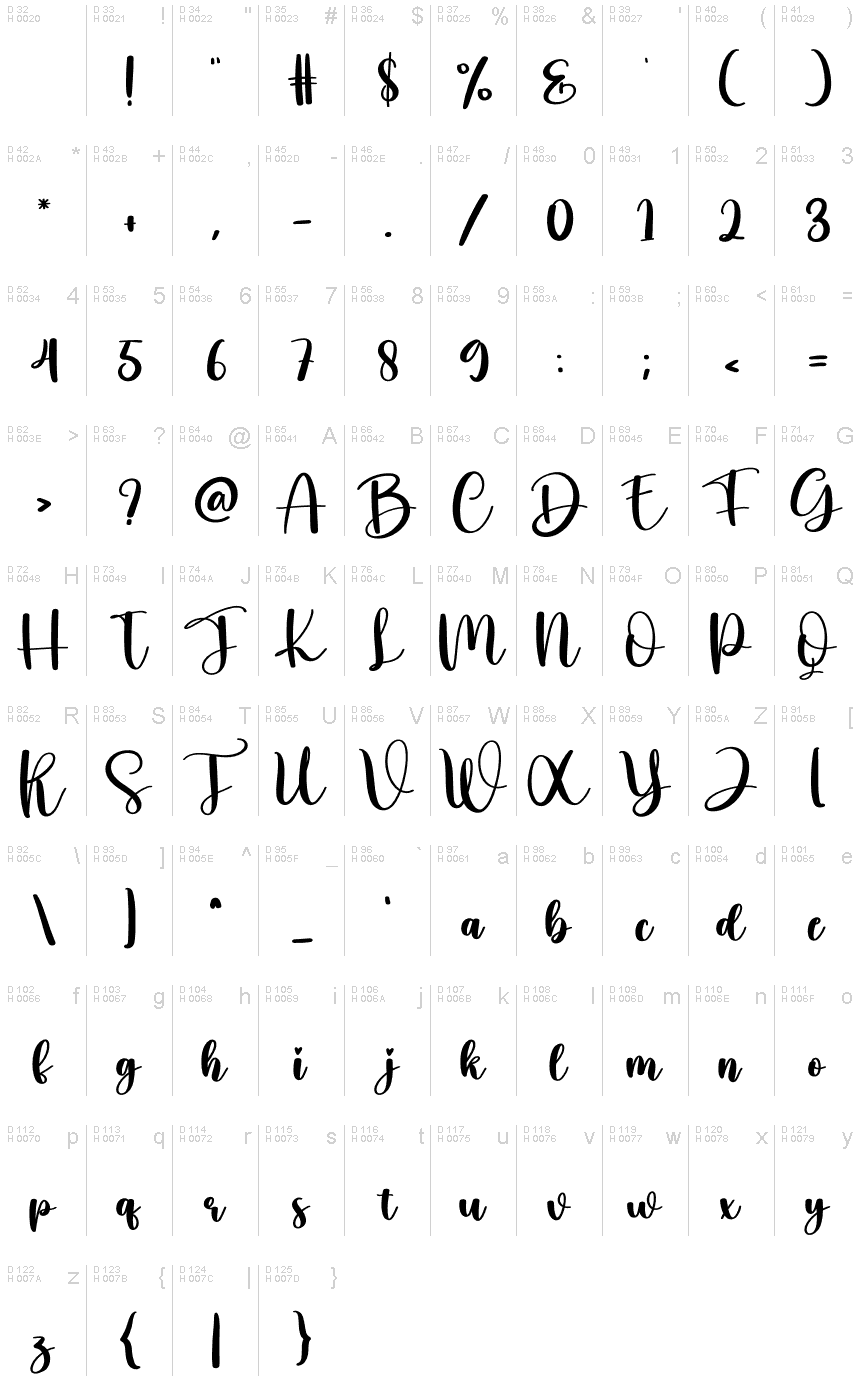
Wildflower
Wildflower, a breathtaking feminine calligraphy font by Scratchones, embodies elegance and grace. Its organic strokes and delicate curves evoke a sense of beauty that is both timeless and enchanting.
With its ornate details and flowing script, Wildflower is perfect for wedding invitations, love letters, and romantic branding projects. Its versatility extends to fashion blogs, beauty products, and lifestyle magazines, adding a touch of sophistication to any design.
Let Wildflower be the voice that whispers sweet nothings into your creative endeavors.